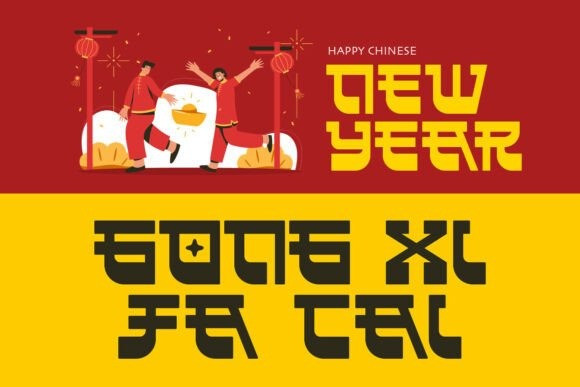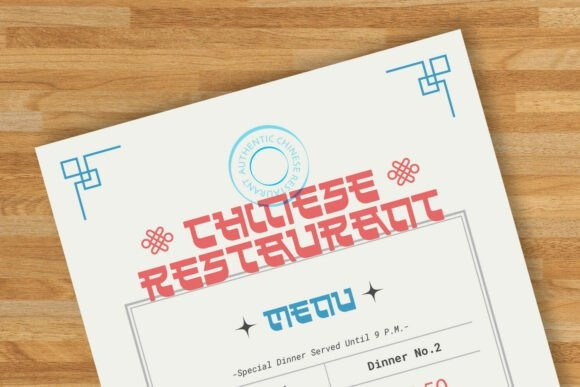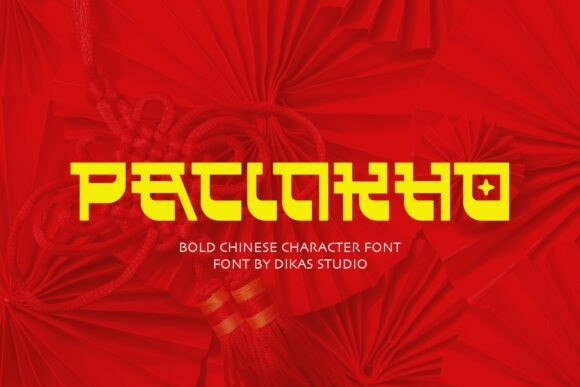
Pacinkho Display Font
Pacinkho Display Font is a bold and distinctive sans serif font with a strong, rounded structure and a rigid, confident feel. Blending oriental aesthetics with a retro flair, this font brings a modern twist to classic Asian-inspired design. Its bold strokes and geometric shapes make it ideal for projects that want to capture the spirit of China, East Asia, or nostalgic vintage themes with a cultural edge.